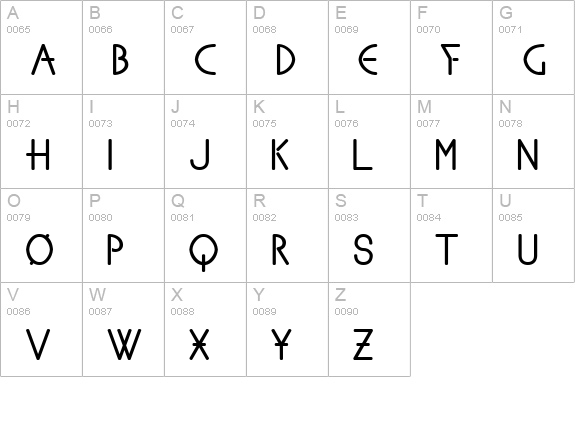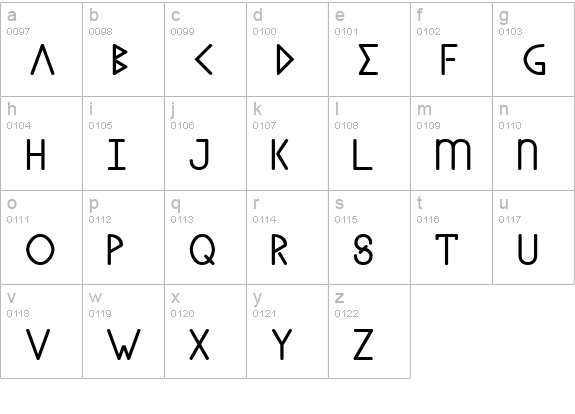
Sanhedrin Font Details
Sanhedrin font is a stunning and versatile typeface that exudes elegance and sophistication. Its beautifully crafted letterforms blend modernity with a touch of classic charm, making it perfect for a wide range of design projects. Featuring sleek and elongated characters, Sanhedrin font commands attention and leaves a lasting impression. Its clean lines and precise curves give it a sense of refinement, making it an excellent choice for branding, editorial designs, packaging, and more. With its extensive character set, including uppercase and lowercase letters, numerals, punctuation marks, and various stylistic alternates, Sanhedrin font offers endless possibilities to unleash your creativity. Whether you're designing a logo, a website, or creating eye-catching headlines, this font provides the flexibility and versatility you need. One of the most appealing aspects of Sanhedrin font is that it is freely available to download at FontsMarket.com. This means that you can enjoy the beauty and functionality of this font without any cost. Whether you're a professional designer or a hobbyist, having access to high-quality fonts like Sanhedrin font can greatly enhance your work and help you achieve outstanding results. So, if you're looking for a font that combines modern aesthetics with a touch of timeless elegance, look no further than Sanhedrin font. Download it for free at FontsMarket.com and let your creativity soar.